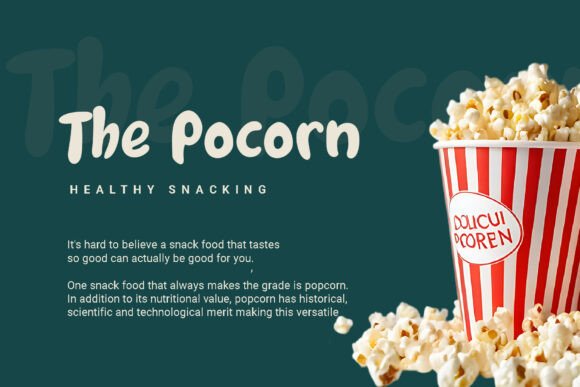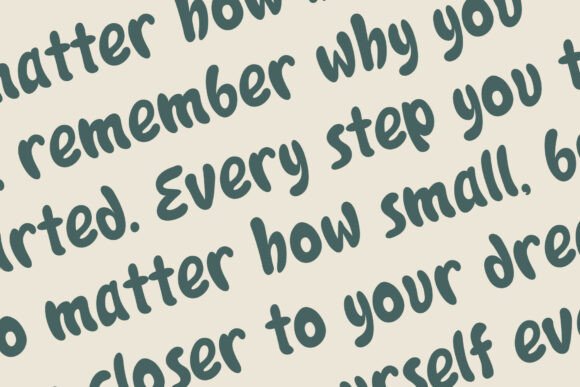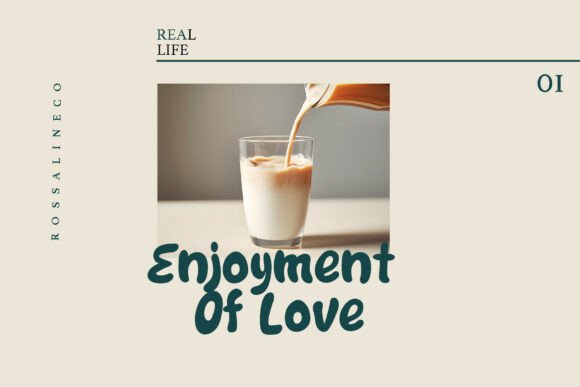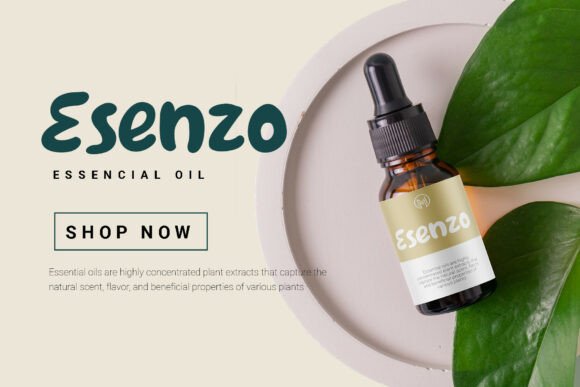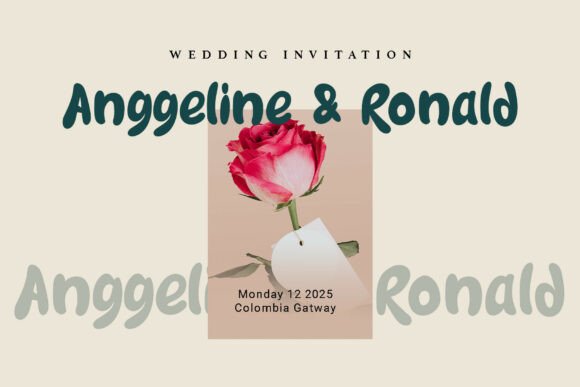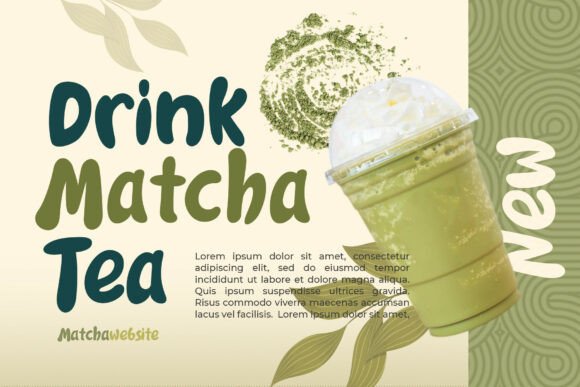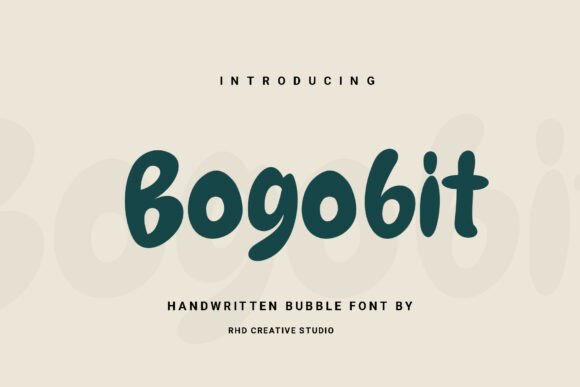
Bogobit Font: The Cute and Charming Display Font for Your Design Projects
Are you looking for a font that can add a touch of whimsy and charm to your design projects? Look no further than the Bogobit font! This adorable display font is perfect for designers and crafters who want to create unique and eye-catching designs that stand out from the crowd. In this article, we’ll take a closer look at the Bogobit font, its features, and how you can use it to elevate your designs.
What is Bogobit Font?
Bogobit is a cute and charming display font that is whimsical and a bit quirky. It’s the perfect addition to any design project that needs a touch of personality and fun. This font is designed to brighten up your designs and make them more engaging and visually appealing. Whether you’re working on a logo, poster, or social media graphic, Bogobit is sure to make your project pop.
Key Features of Bogobit Font
So, what makes Bogobit font so special? Here are some of its key features:
- Cute and charming design: Bogobit font has a unique and adorable design that’s sure to capture the attention of your audience.
- Whimsical and quirky: This font has a playful and quirky feel that’s perfect for designs that need a touch of personality.
- Display font: Bogobit is a display font, making it perfect for headlines, titles, and other design elements that need to stand out.
- Easy to read: Despite its quirky design, Bogobit font is easy to read, making it perfect for use in a variety of design projects.
How to Use Bogobit Font in Your Design Projects
Now that we’ve covered the features of Bogobit font, let’s talk about how you can use it in your design projects. Here are some ideas to get you started:
- Logos and branding: Use Bogobit font to create a unique and memorable logo for your business or brand.
- Posters and flyers: Add a touch of whimsy to your posters and flyers with Bogobit font.
- Social media graphics: Use Bogobit font to create eye-catching social media graphics that stand out from the crowd.
- Invitations and cards: Add a personal touch to your invitations and cards with Bogobit font.
Tips for Using Bogobit Font Effectively
Here are some tips for using Bogobit font effectively in your design projects:
- Use it sparingly: Bogobit font is a display font, so it’s best to use it sparingly to avoid overwhelming your design.
- Pair it with other fonts: Experiment with pairing Bogobit font with other fonts to create a unique and visually appealing design.
- Experiment with colors: Bogobit font looks great in a variety of colors, so don’t be afraid to experiment and find the perfect color for your design.
In conclusion, Bogobit font is a cute and charming display font that’s perfect for designers and crafters who want to add a touch of whimsy and personality to their design projects. With its unique design, ease of use, and versatility, Bogobit font is sure to become a favorite in your design toolkit. So why not give it a try and see the amazing results for yourself?
Whether you’re a seasoned designer or just starting out, Bogobit font is a great addition to your design arsenal. Its quirky and playful design is sure to capture the attention of your audience and make your designs stand out from the crowd. So go ahead, add Bogobit font to your projects, and watch as your designs come to life in a whole new way!